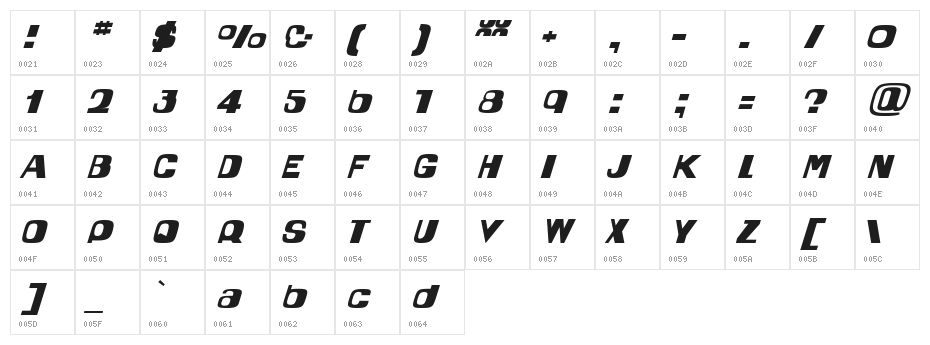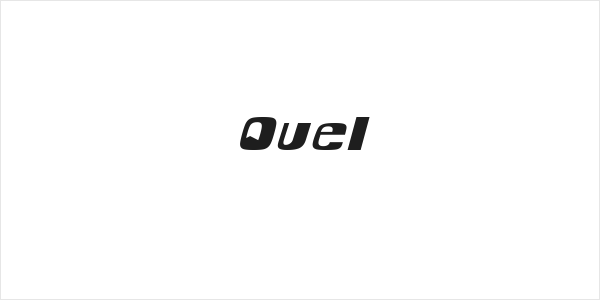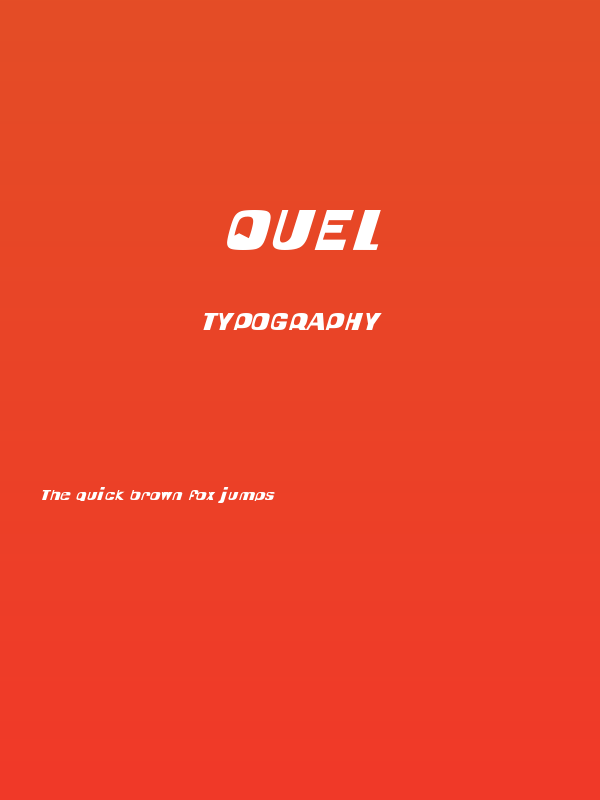
Quel Font
Quel Description
This font features a bold and dynamic style with a forward-leaning italic slant, giving it a sense of motion and speed. The characters are sans-serif, with a modern and sleek appearance. The uppercase letters are slightly condensed, while the lowercase letters maintain a consistent width, providing a balanced look. The numerals are bold and clear, ensuring readability. Special characters are designed with the same boldness and slant, maintaining uniformity across the font. The overall design is suitable for projects that require a contemporary and energetic feel.